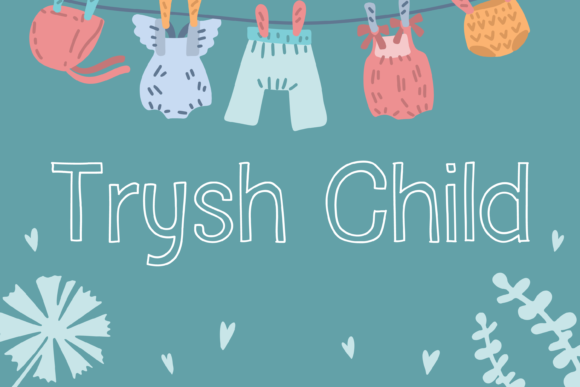
Embark on a visual journey with Trysh Child Font, a captivating display font that dances across the screen with simple grace and joyous charm. Its unassuming demeanor belies a remarkable versatility, effortlessly adapting to a myriad of designs, from playful and whimsical to elegant and sophisticated.
With Trysh Child Font, you'll unlock a world of creative possibilities, transforming your digital creations into captivating masterpieces. Its casual, down-to-earth vibe lends an air of approachability and authenticity to your designs, making them resonate with audiences on a deeper level.
Step into the spotlight with Trysh Child Font, the ultimate choice for captivating TV displays. Its crisp, clean lines and exceptional readability ensure that your messages shine brightly, leaving a lasting impression on viewers. Whether you're crafting dynamic presentations, engaging infographics, or attention-grabbing advertisements, Trysh Child Font will elevate your visuals to new heights.
Unleash your creativity with Trysh Child Font, the perfect companion for social media graphics. Its playful personality adds a touch of whimsy to your posts, stories, and reels, instantly capturing the attention of your followers. Whether you're sharing travel adventures, promoting products, or simply expressing yourself, Trysh Child Font will make your content stand out from the crowd.
Dive into the world of branding and logo design with Trysh Child Font, your secret weapon for creating unforgettable identities. Its versatile nature allows you to craft logos that resonate with your brand's unique personality, whether it's playful, professional, or anything in between. With Trysh Child Font, your logo will leave a lasting impression, ensuring that your brand is remembered long after the first encounter.